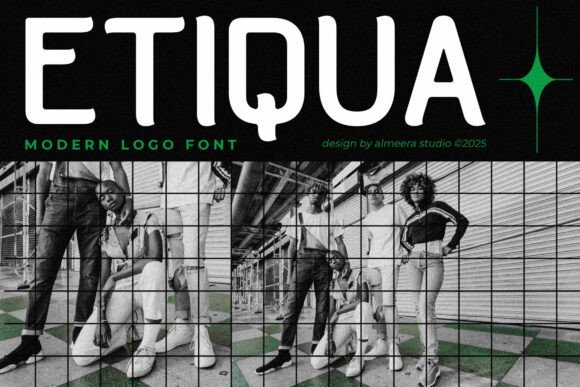
Meet Etiqua Font, a modern sans serif font designed to elevate your creative projects. Whether you’re working on a branding project, creating social media posts, or designing product packaging, Etiqua Font is the perfect companion. Its clean and minimalist design makes it a valuable asset for designers looking to add a touch of sophistication to their work.
With Etiqua Font, you’ll be able to create stunning visual identities, labels, and watermarks that will leave a lasting impression on your audience.
Etiqua Font Key Features
- Font Family: Etiqua Font is a sans-serif font family designed for digital use.
- Font Size: Offers a wide range of font sizes, from 8pt to 72pt.
- Resolution: Designed for high-resolution displays, including 4K and Retina displays.
- Unique Characteristics: Etiqua Font features a unique blend of modern and minimalist design elements, with clean lines and geometric shapes.
- Character Set: Includes a comprehensive character set, including Latin, Cyrillic, and Greek alphabets, as well as punctuation and symbols.
Etiqua Font Review
As a designer, I’ve had the chance to work with Etiqua Font, and I must say it’s a unique addition to any project. Here are my thoughts on what works well and what doesn’t.
- Elegant and sophisticated look: Etiqua Font has a classic feel to it, making it perfect for luxury brands, fashion, and high-end publications.
- Versatile font family: With multiple weights and styles, Etiqua Font offers a range of options to suit different design needs.
- Legibility: Despite its elegant appearance, Etiqua Font is surprisingly easy to read, even at smaller font sizes.
- Limited language support: Etiqua Font’s character set is somewhat limited, making it less suitable for multilingual projects.
- Not ideal for body text: While Etiqua Font is great for headings and titles, it may not be the best choice for large blocks of body text due to its elegant, yet sometimes awkward spacing.
Overall, I’d say Etiqua Font is a great addition to any designer’s toolkit, especially for projects that require a touch of elegance and sophistication. However, it’s essential to weigh its limitations and consider the specific needs of your project before making a final decision.
Etiqua Font is perfect for creating elegant and sophisticated designs. Use it for:
– Luxury branding and marketing materials
– High-end packaging and labels
– Formal presentations and reports
– Any design project that requires a touch of elegance and sophistication.
Alternatives to Etiqua Font
Montserrat is a sans-serif font that is highly legible and versatile. It is suitable for use in digital interfaces, signage, and other applications where a clean and modern look is desired. Montserrat is more geometric and less rounded compared to Etiqua Font, making it a good choice for modern and tech-related designs.
Lato is a sans-serif font that is designed to be highly legible and readable even at small font sizes. It is a good choice for use in digital interfaces, web design, and other applications where a clean and modern look is desired. Lato is more condensed and has a higher x-height compared to Etiqua Font, making it a good choice for use in titles and headings.
Open Sans is a sans-serif font that is highly legible and versatile. It is a good choice for use in digital interfaces, web design, and other applications where a clean and modern look is desired. Open Sans is more rounded and has a softer feel compared to Etiqua Font, making it a good choice for use in body text and other applications where readability is key.
Inter is a sans-serif font that is highly legible and versatile. It is a good choice for use in digital interfaces, signage, and other applications where a clean and modern look is desired. Inter is more modern and has a higher x-height compared to Etiqua Font, making it a good choice for use in titles and headings.
Q: What is the supported character set for Etiqua Font?
Etiqua Font supports a wide range of characters, including Latin, Cyrillic, Greek, and many special characters. The font includes over 1000 glyphs and supports Unicode character sets up to Unicode 14.0. However, please note that some characters may not be available in all font formats or versions.